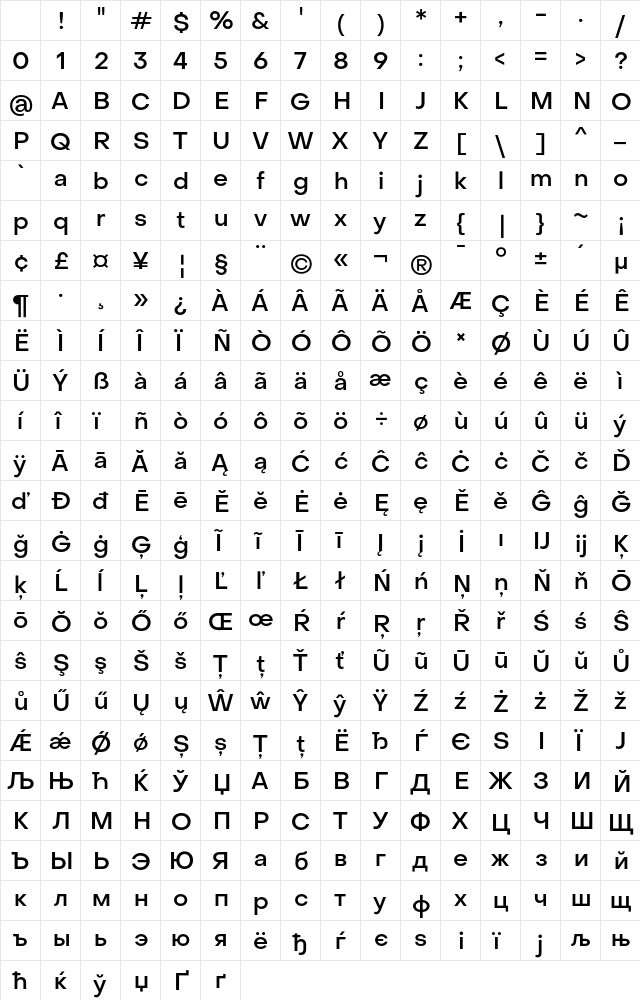
Complete Object Sans Medium Regular glyph index. Displaying only characters natively supported by Object Sans Medium Regular font.
Object Sans Medium is a composed and adaptable typeface that performs quietly and consistently across a wide range of design contexts.